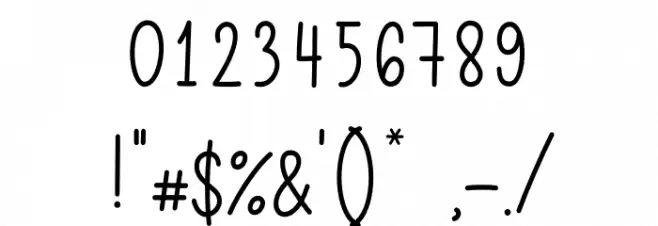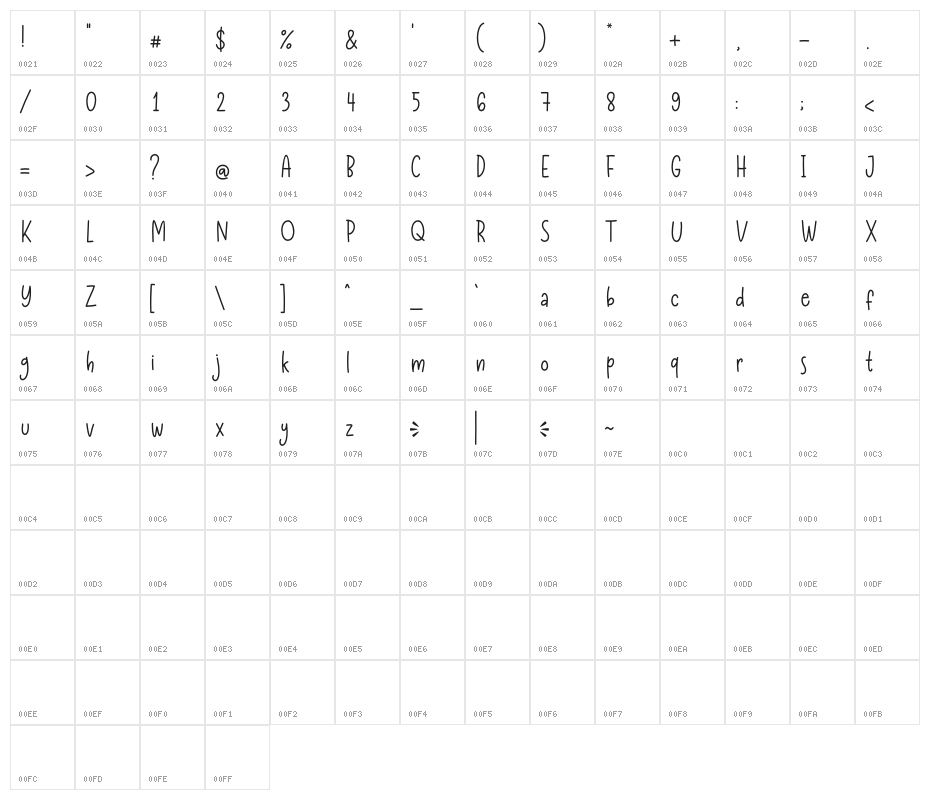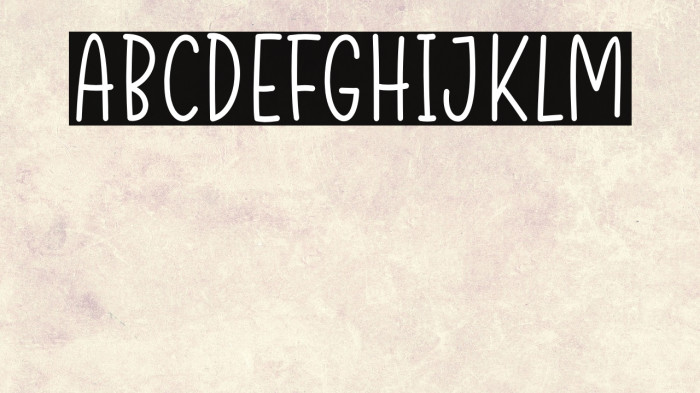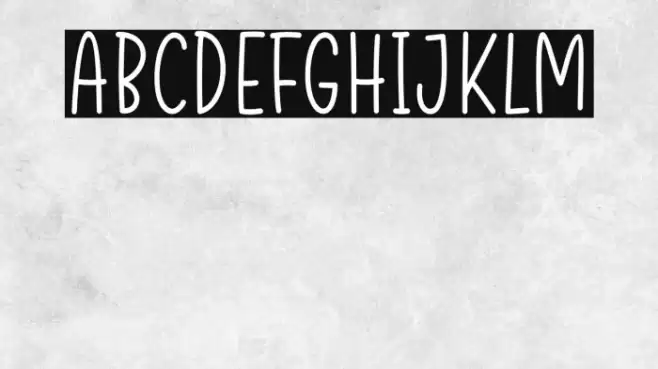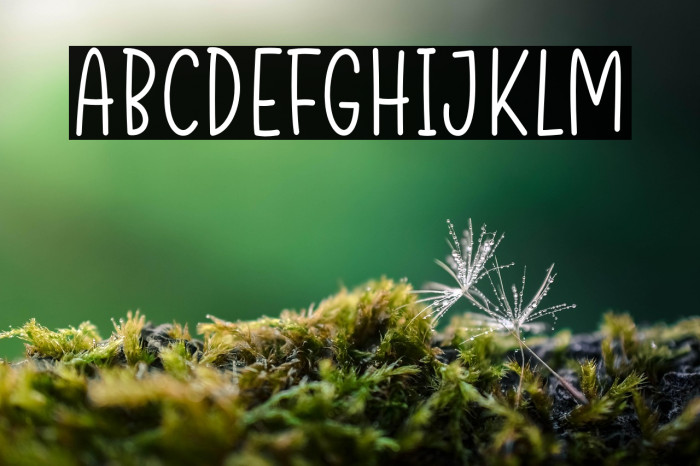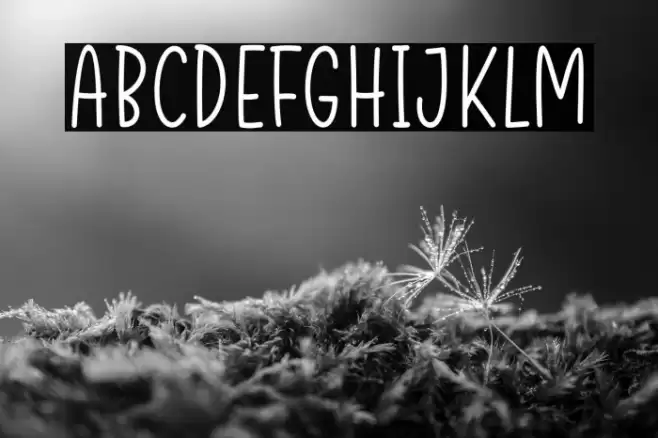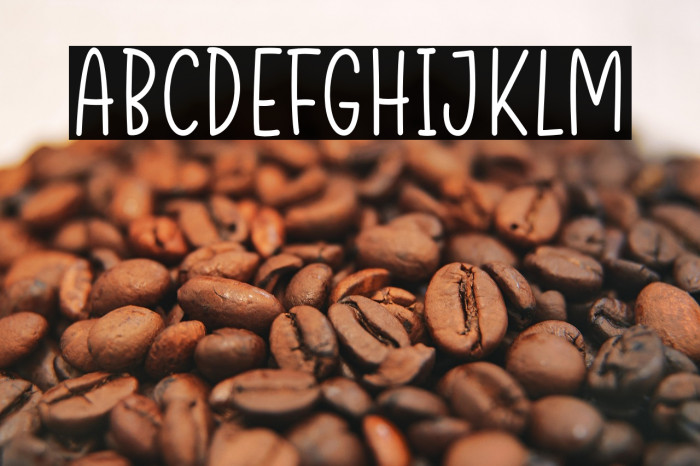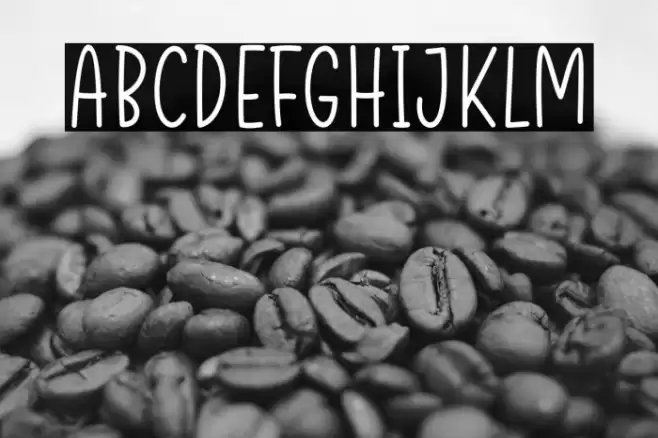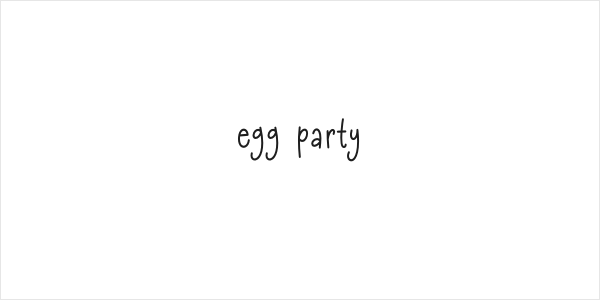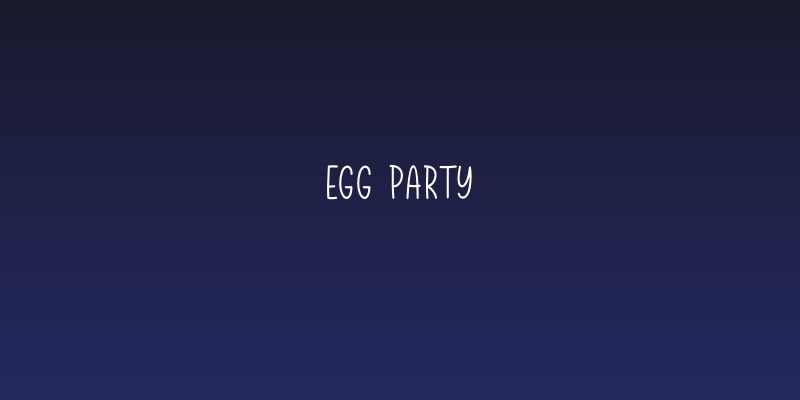
egg party Font
egg party Description
This playful and whimsical font features a handwritten style with a casual and friendly appearance. The letters are slightly irregular, giving it a charming and approachable feel. The strokes are consistent in width, providing a uniform look across all characters. The font includes both uppercase and lowercase letters, numerals, and a variety of special characters, making it versatile for different uses. Its informal style is perfect for projects that require a personal touch or a fun, lighthearted vibe.
| Use Case | Headlines, Informal text, Branding |
| Proposed Projects | Ideal for greeting cards, children's books, playful branding, and casual invitations. |